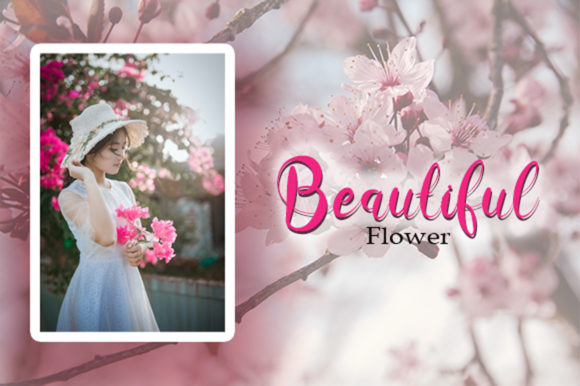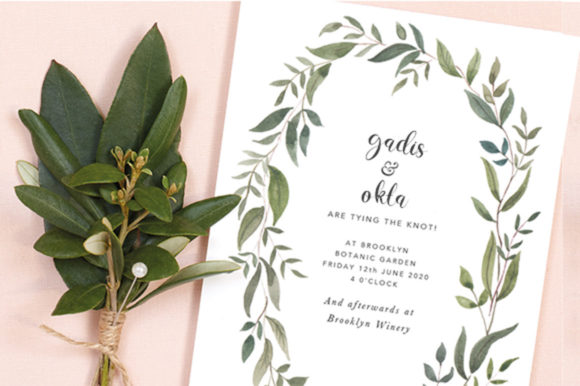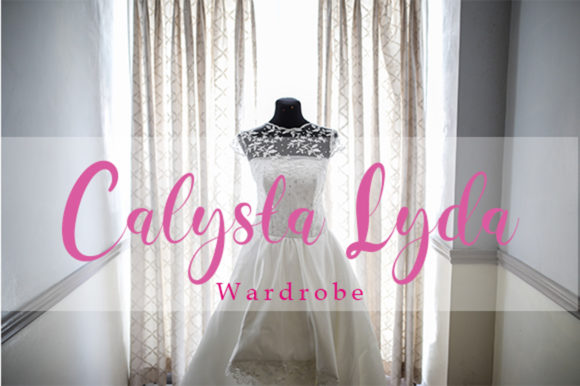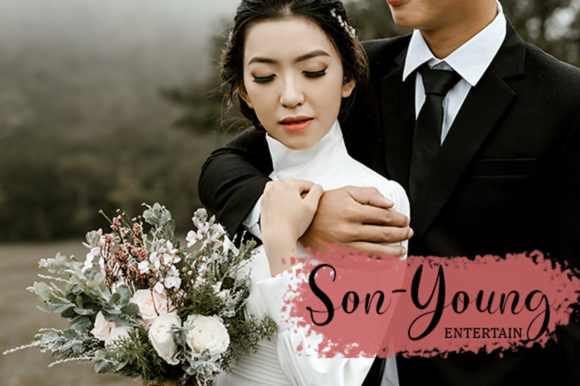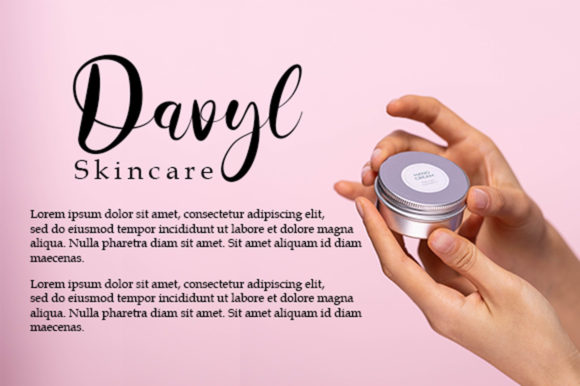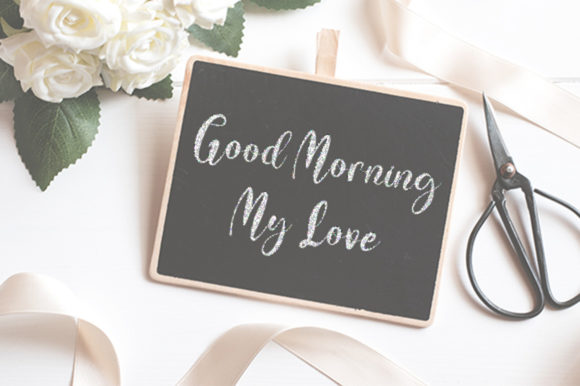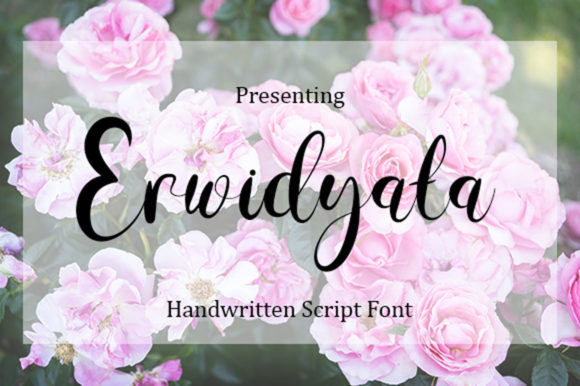
Introducing Erwidyata Font: Elevate Your Designs with Elegance and Sophistication
In the world of design, fonts play a crucial role in conveying the message and aesthetic of a brand or product. For designers and crafters seeking a high-quality, handwritten font that can elevate their packaging products, invitation cards, and other design aspects, Erwidyata Font is an excellent choice. In this article, we’ll explore the features and benefits of Erwidyata Font, and why it’s becoming a go-to for designers and crafters alike.
What is Erwidyata Font?
Erwidyata Font is a beautifully crafted handwritten font, specifically designed for use in packaging products, invitation cards, and all aspects that require high-quality fonts. Its elegant and sophisticated design makes it perfect for designers and crafters looking to add a touch of luxury to their work.
Key Features of Erwidyata Font
- Handwritten Design: Erwidyata Font boasts a unique, handwritten design that adds a personal touch to any project.
- High-Quality Graphics: The font features high-quality graphics, including characters and kerning, making it suitable for a wide range of design aspects.
- Versatility: Erwidyata Font can be used in various design applications, from packaging products to invitation cards, and more.
- Elegant and Sophisticated: The font’s elegant and sophisticated design makes it perfect for designers and crafters looking to create high-end products.
Benefits of Using Erwidyata Font
By incorporating Erwidyata Font into your designs, you can enjoy several benefits, including:
- Enhanced Visual Appeal: The font’s elegant design will elevate the visual appeal of your products, making them more attractive to potential customers.
- Professionalism: Erwidyata Font will add a touch of professionalism to your designs, helping you establish a strong brand identity.
- Unique Identity: The font’s unique handwritten design will help you create a distinctive identity for your brand or product.
- Time-Saving: With Erwidyata Font, you can save time and effort in creating high-quality designs, allowing you to focus on other aspects of your project.
Who Can Benefit from Erwidyata Font?
Erwidyata Font is an excellent choice for:
- Graphic Designers: Looking for a high-quality, handwritten font to elevate their designs.
- Crafters: Seeking a elegant and sophisticated font for their handmade products.
- Brands: Aiming to establish a strong brand identity with a unique and professional font.
- Marketing Agencies: Needing a high-quality font for their clients’ marketing materials.
In conclusion, Erwidyata Font is an exceptional handwritten font that offers elegance, sophistication, and versatility. Its high-quality graphics, including characters and kerning, make it suitable for a wide range of design aspects. Whether you’re a graphic designer, crafter, brand, or marketing agency, Erwidyata Font is an excellent choice for elevating your designs and establishing a strong brand identity.